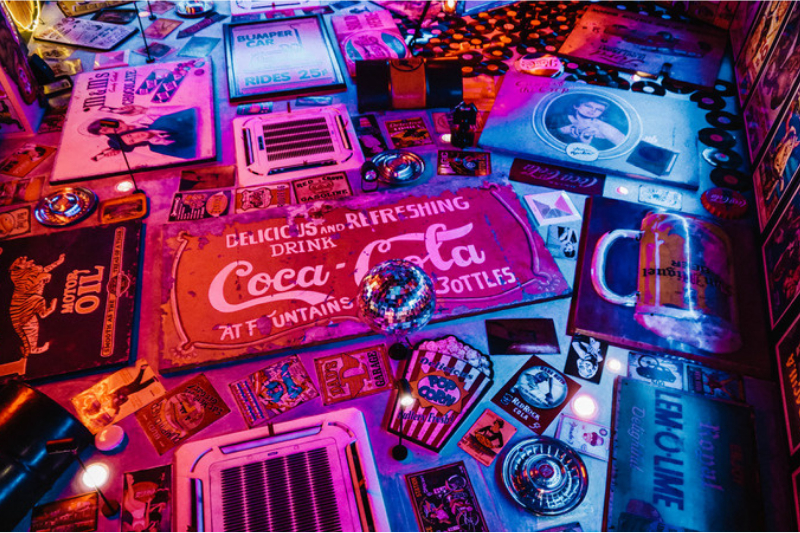
Coca Cola Font Generator
About the Coca Cola Font Generator
Coca-Cola, one of the world's most recognized and iconic brands, has left an indelible mark on popular culture. Its distinctive logo and unique typography are instantly recognizable and synonymous with the brand.
About Coca-Cola Font
The Coca-Cola logo features a unique and timeless font called "Spencerian Script." This script font, developed in the mid-19th century, exudes a sense of elegance and classic charm. The letterforms of Spencerian Script are characterized by flowing, cursive strokes and elaborate curves, giving the logo a sense of sophistication and nostalgia. The font choice for Coca-Cola has remained unchanged for over a century, contributing to its brand recognition and enduring appeal.
Coca-Cola Font Generator
For fans and designers who want to create their Coca-Cola-inspired typography, the Coca-Cola Font Generator is an exciting tool. This online generator allows users to generate text in the style of the Coca-Cola logo by simply entering their desired text. The generator offers various options to customize the typography, including font styles, sizes, and effects.